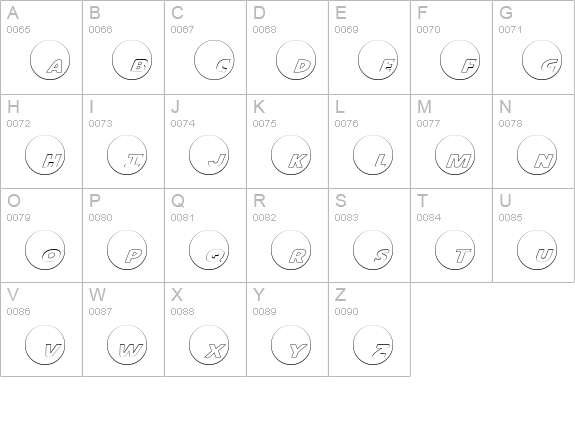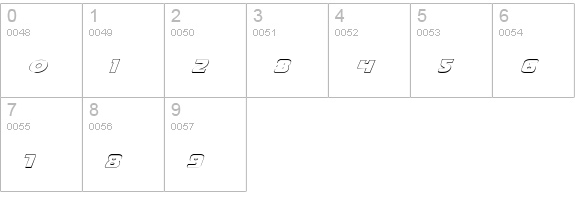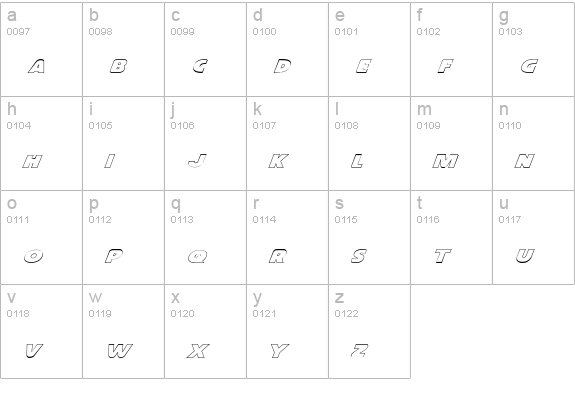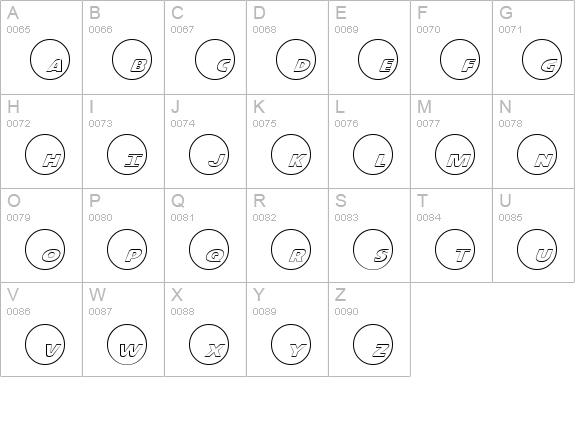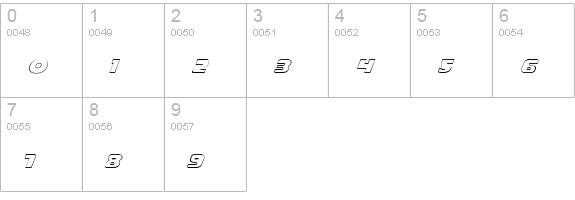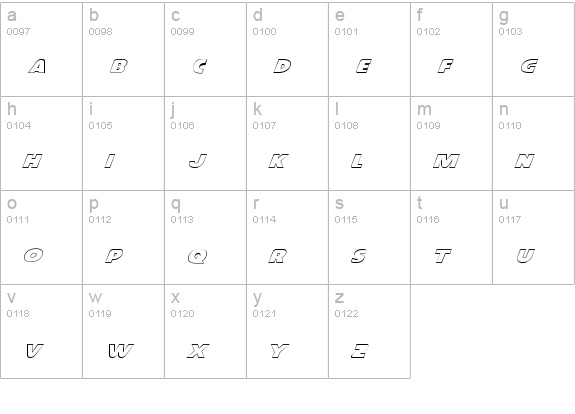
Dot.com Outline font is a modern and sleek typeface that adds a touch of sophistication to any design project. Featuring clean lines and a contemporary aesthetic, this font is perfect for creating eye-catching headlines, logos, and branding materials. The outline style gives it a unique and trendy appearance that will make your text stand out. Best of all, Dot.com Outline font is available for free download at FontsMarket.com. Whether you're a designer, blogger, or small business owner, you can easily access this stylish font to elevate your projects and make a lasting impression. Don't miss out on the opportunity to enhance your designs with this versatile and professional typeface. Download Dot.com Outline font today and take your creativity to the next level!